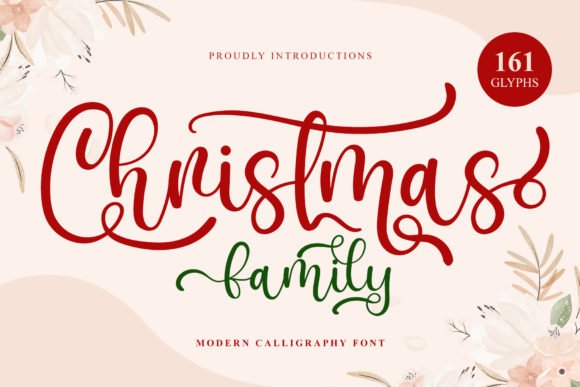
Deck the Halls with a Touch of Luxury
As the holiday season approaches, I find myself wandering through the aisles of my local craft store, searching for the perfect decorations to make our home feel merry and bright. And then, it hits me – the fonts. Oh, the beautiful, festive fonts that can elevate any design project from ordinary to extraordinary. It’s in these moments that I stumble upon the Christmas Family Font, a calligraphy typeface that embodies the magic of the season.
With its charming, dancing characters, the Christmas Family Font is the perfect addition to any design project. Whether you’re creating holiday cards, gift tags, or social media graphics, this font adds a touch of luxury and whimsy that’s sure to delight. For designers, the Christmas Family Font is a valuable asset, offering a unique and festive way to express the spirit of the season.
Key Features of Christmas Family Font
- Size: 1,048 characters (including uppercase, lowercase, numbers, and special characters)
- Unique Characteristics: Hand-drawn, festive design with intricate details and ornaments, perfect for holiday-themed projects
- Font Style: Script, casual, and playful, ideal for creating a warm and inviting atmosphere
Designer Review: Christmas Family Font
I recently had the chance to work with the Christmas Family Font and here’s my honest take on it.
✨ The font is well-suited for Christmas-themed projects, especially those with a vintage or classic feel. The characters are designed to resemble handwritten letters, giving it a personal touch.
✨ The font includes a wide range of characters, including ornaments, decorations, and even a few holiday-themed icons. This makes it easy to add a festive touch to any project.
⚠️ The font can be quite ornate, which may make it difficult to read in certain contexts. This is especially true for body text or long blocks of text.
⚠️ The font also lacks a consistent weight system, which can make it difficult to create clear typography hierarchies.
⚠️ Some characters, such as the punctuation marks, may not be immediately recognizable or may require some effort to read.
While the Christmas Family Font is well-suited for certain projects, its limitations may make it less versatile than other fonts. However, with careful use and consideration, it can be a great addition to any designer’s toolkit.
- Recommended for: Christmas-themed projects, vintage or classic designs, decorative typography
- Not recommended for: Body text, long blocks of text, projects requiring clear typography hierarchies
Getting the Most Out of the Christmas Family Font
To get the most out of the Christmas Family Font, use it in conjunction with festive graphics and colors to create a cohesive holiday design. Experiment with different font sizes and styles to add visual interest and emphasis to your text.
The Christmas Family Font is ideal for holiday cards, invitations, and social media graphics. Use it to add a personal touch to your holiday designs and make them stand out from the crowd.
Alternatives to Christmas Family Font
Great Vibes is a modern, elegant script font perfect for creating a festive atmosphere. It features flowing lines and subtle flourishes, making it ideal for invitations, greeting cards, and social media posts. Great Vibes is more versatile than Christmas Family Font, as it can be used for various occasions beyond Christmas.
Comparison: Great Vibes has a more refined and sophisticated look compared to Christmas Family Font, which is more playful and festive.
Carolyna Pro is a luxurious, high-end script font designed for luxury brands and high-end events. It features intricate details and elegant flourishes, making it perfect for weddings, luxury product launches, and other upscale events. Carolyna Pro is more formal and sophisticated than Christmas Family Font, making it suitable for more formal occasions.